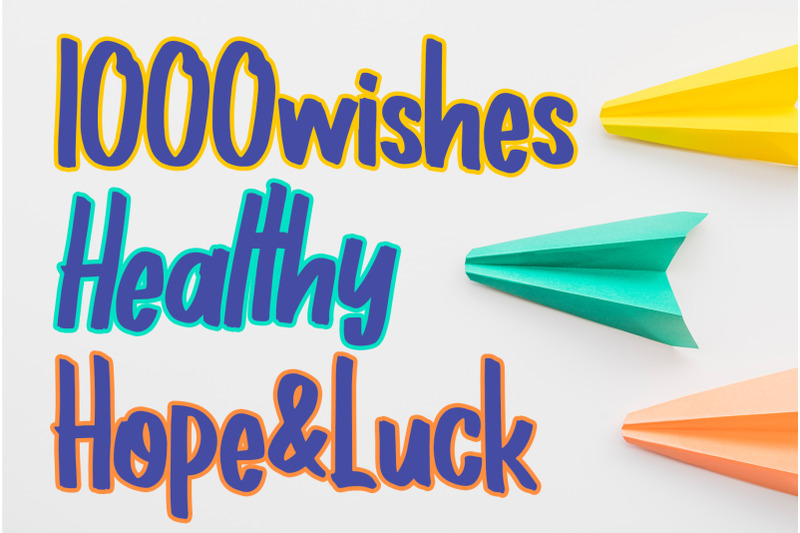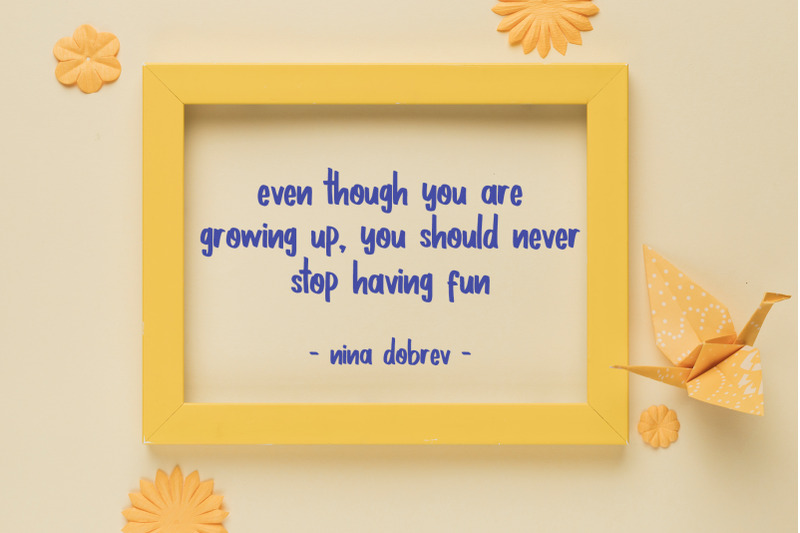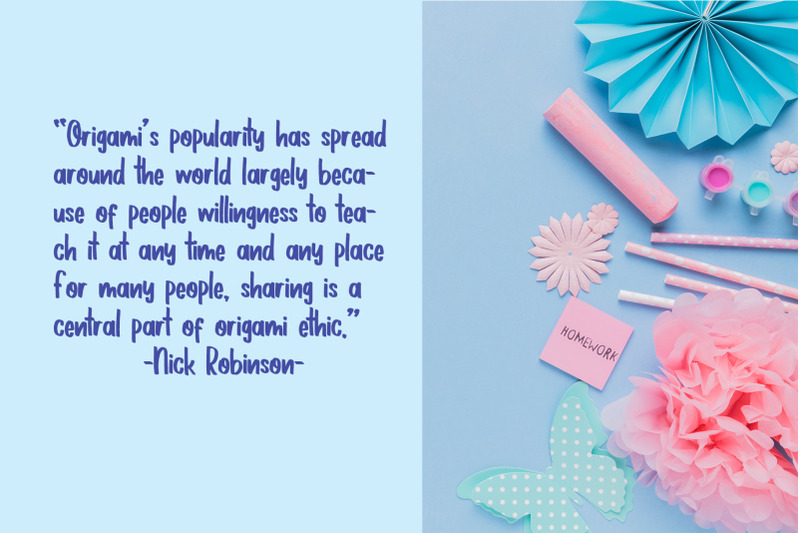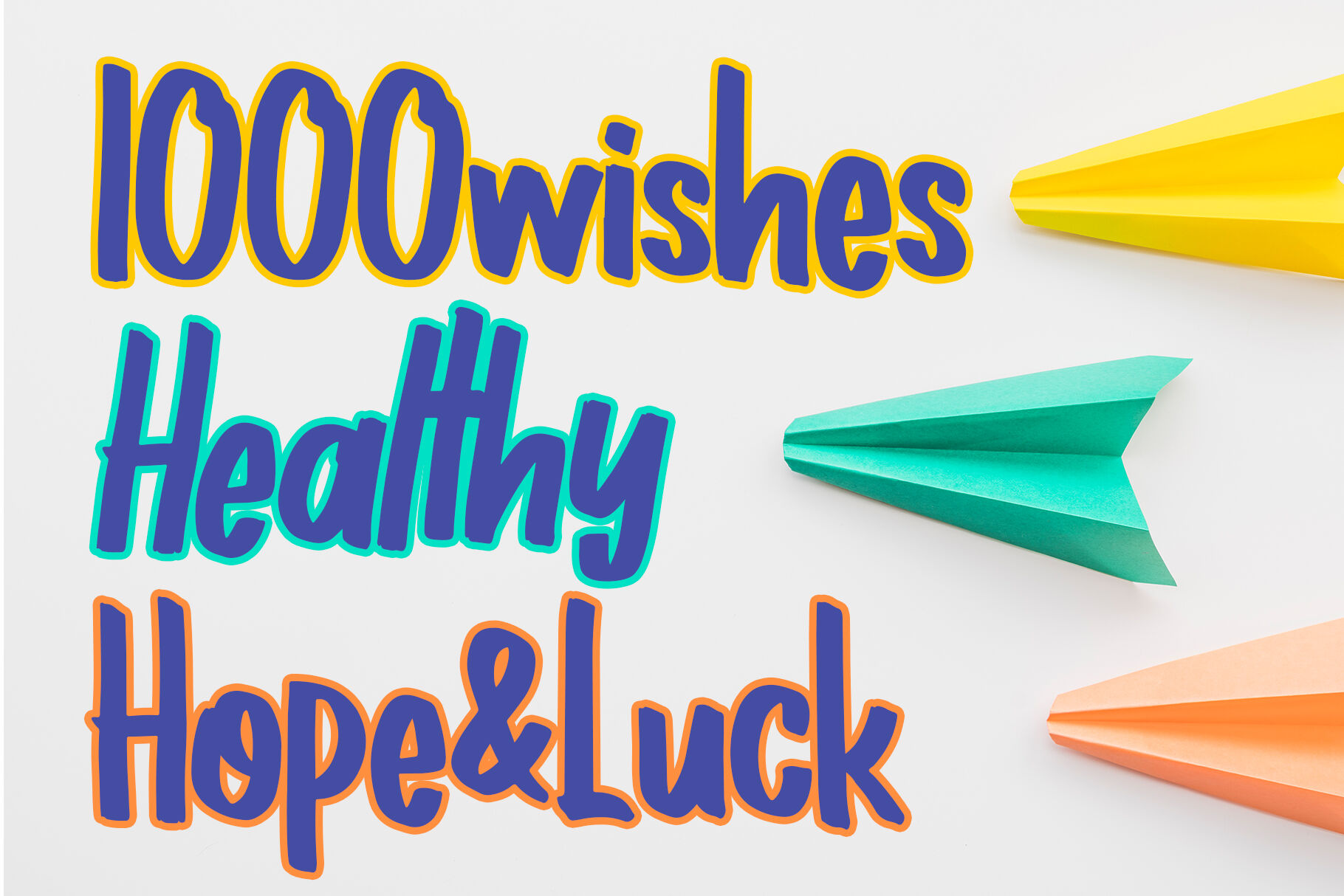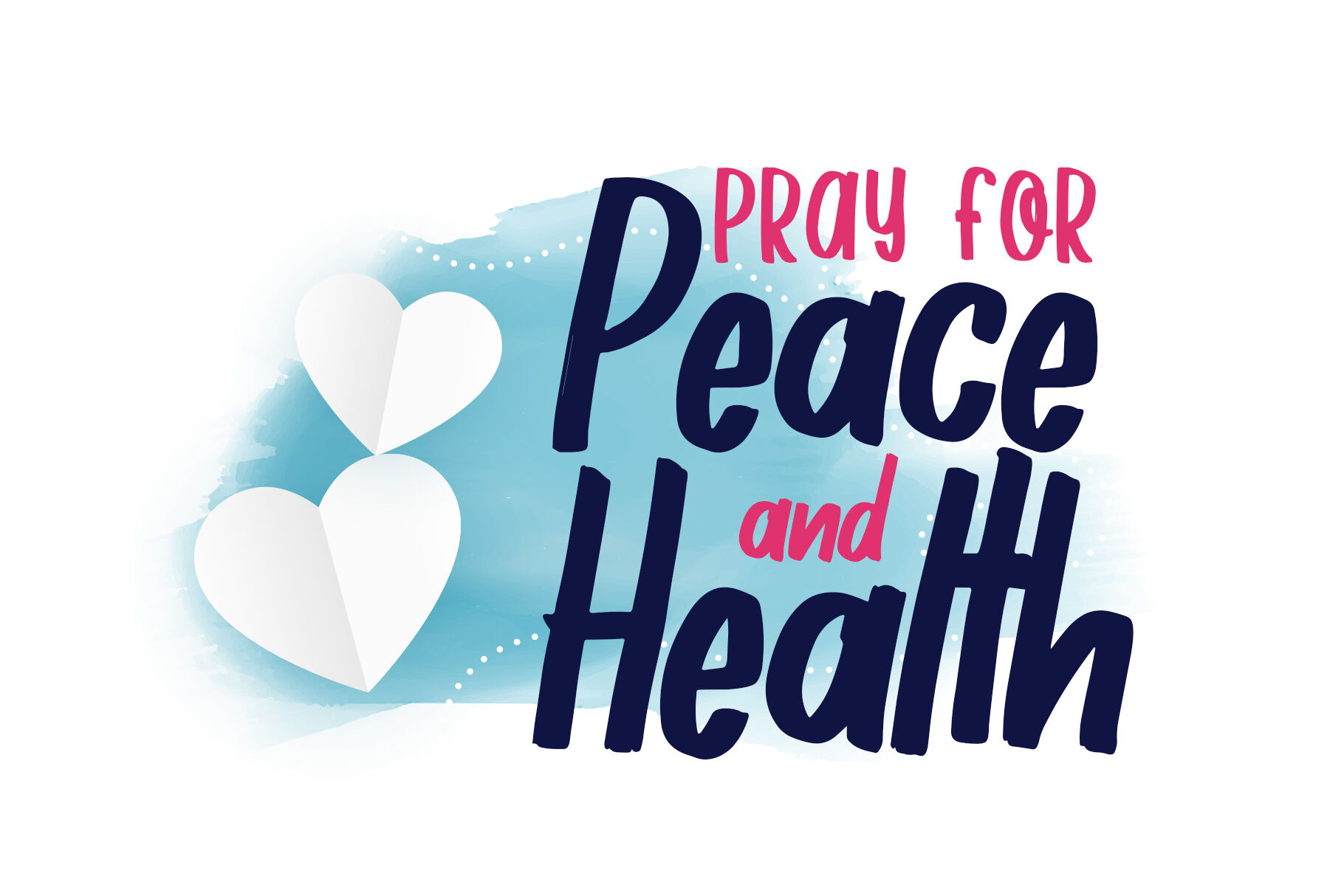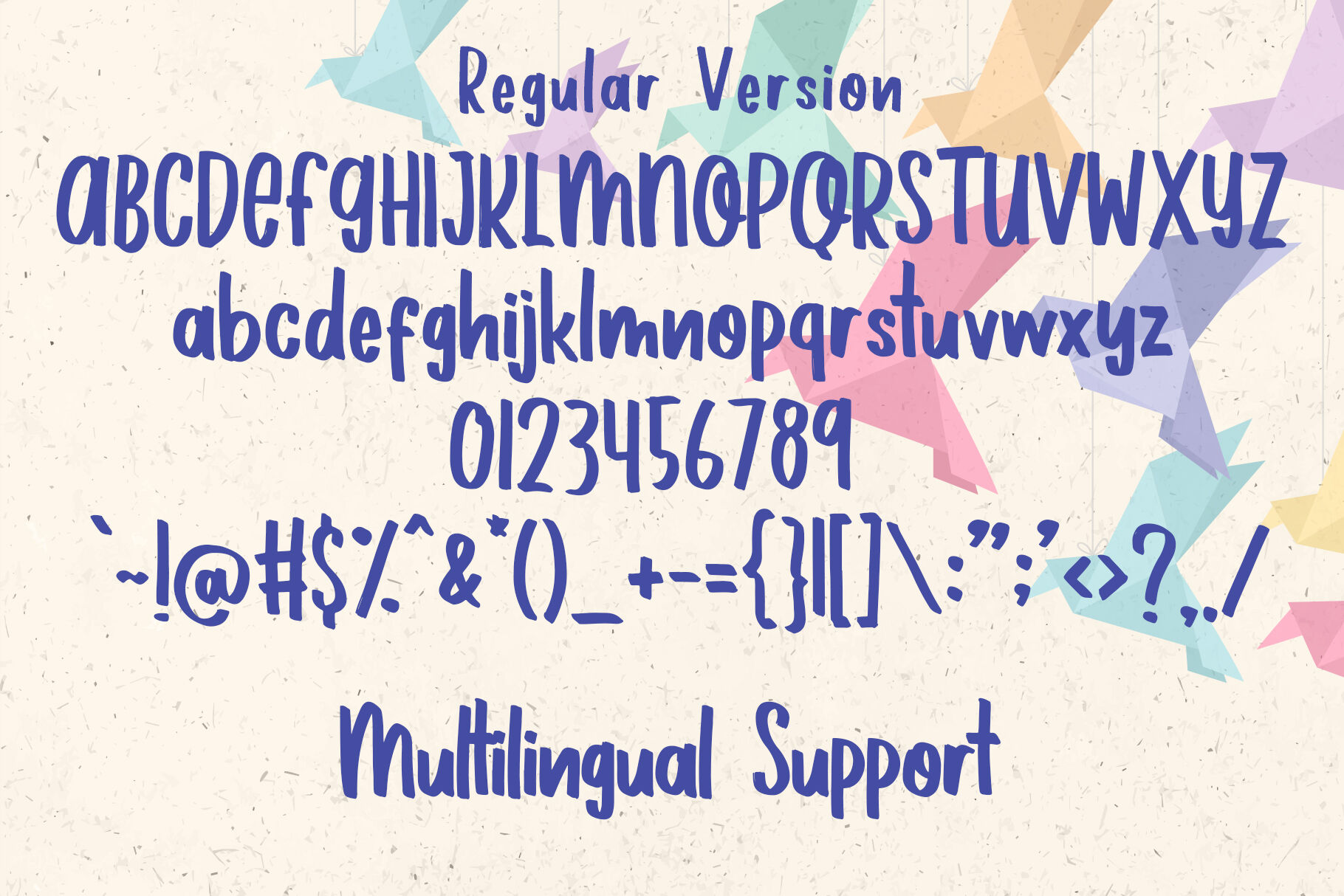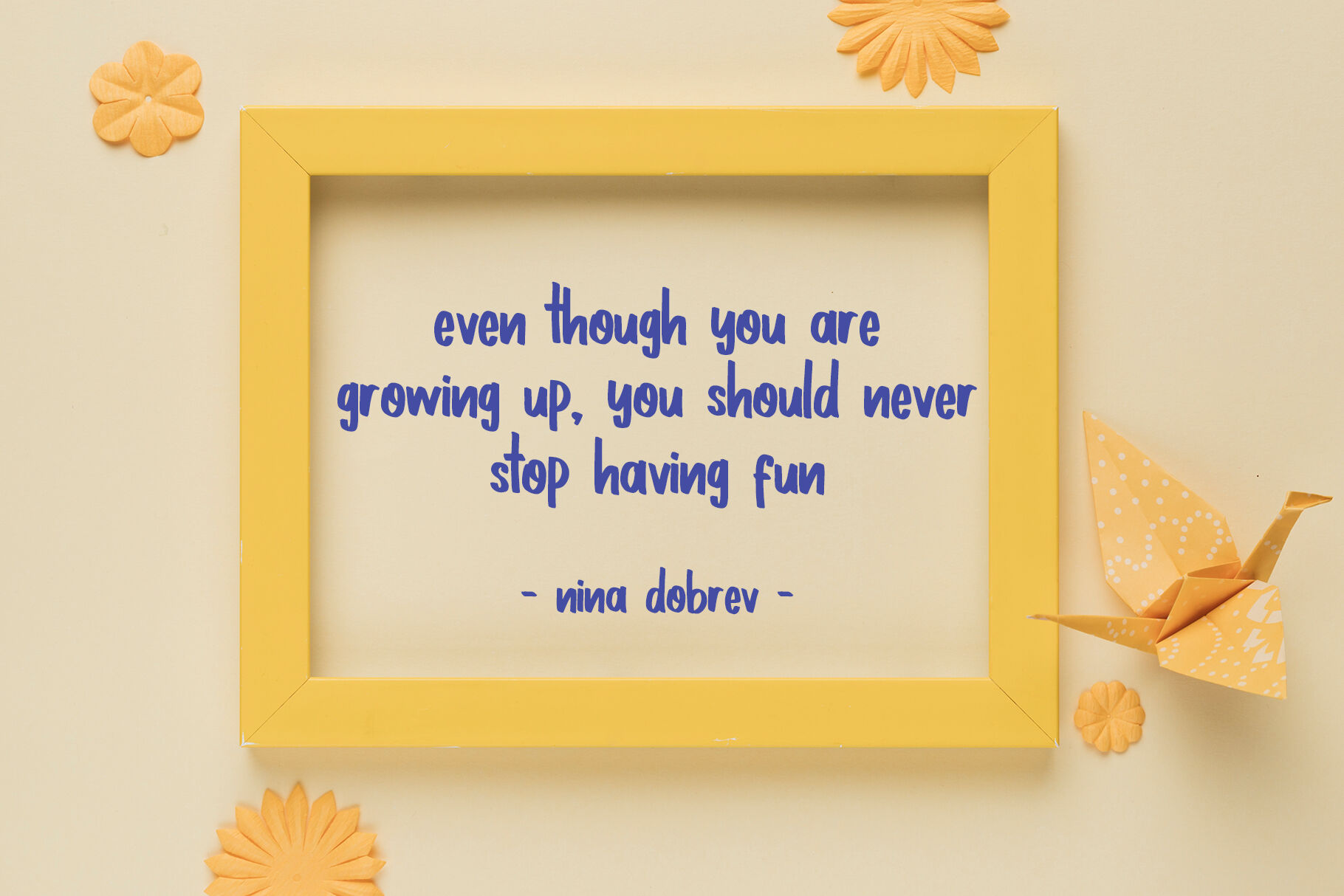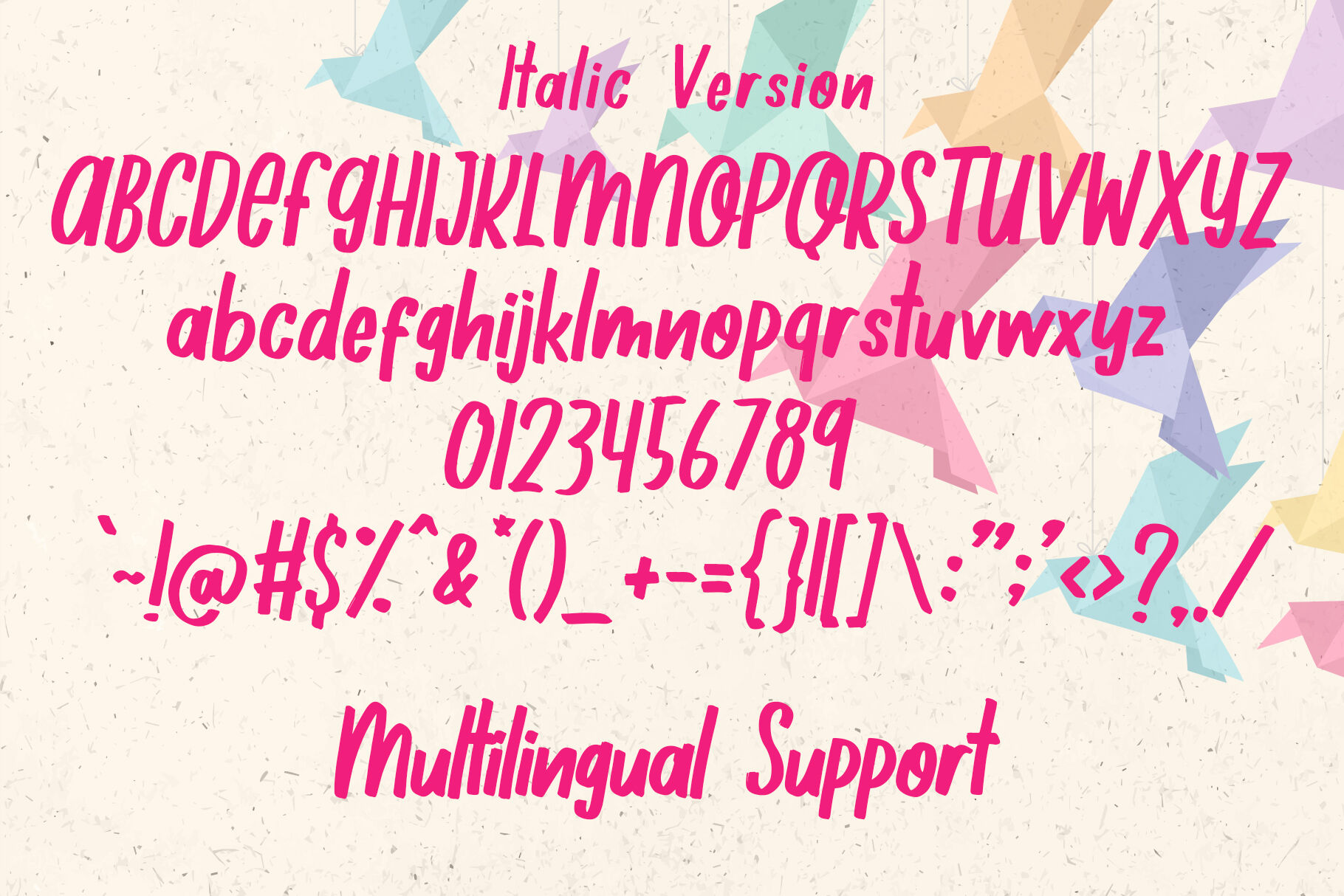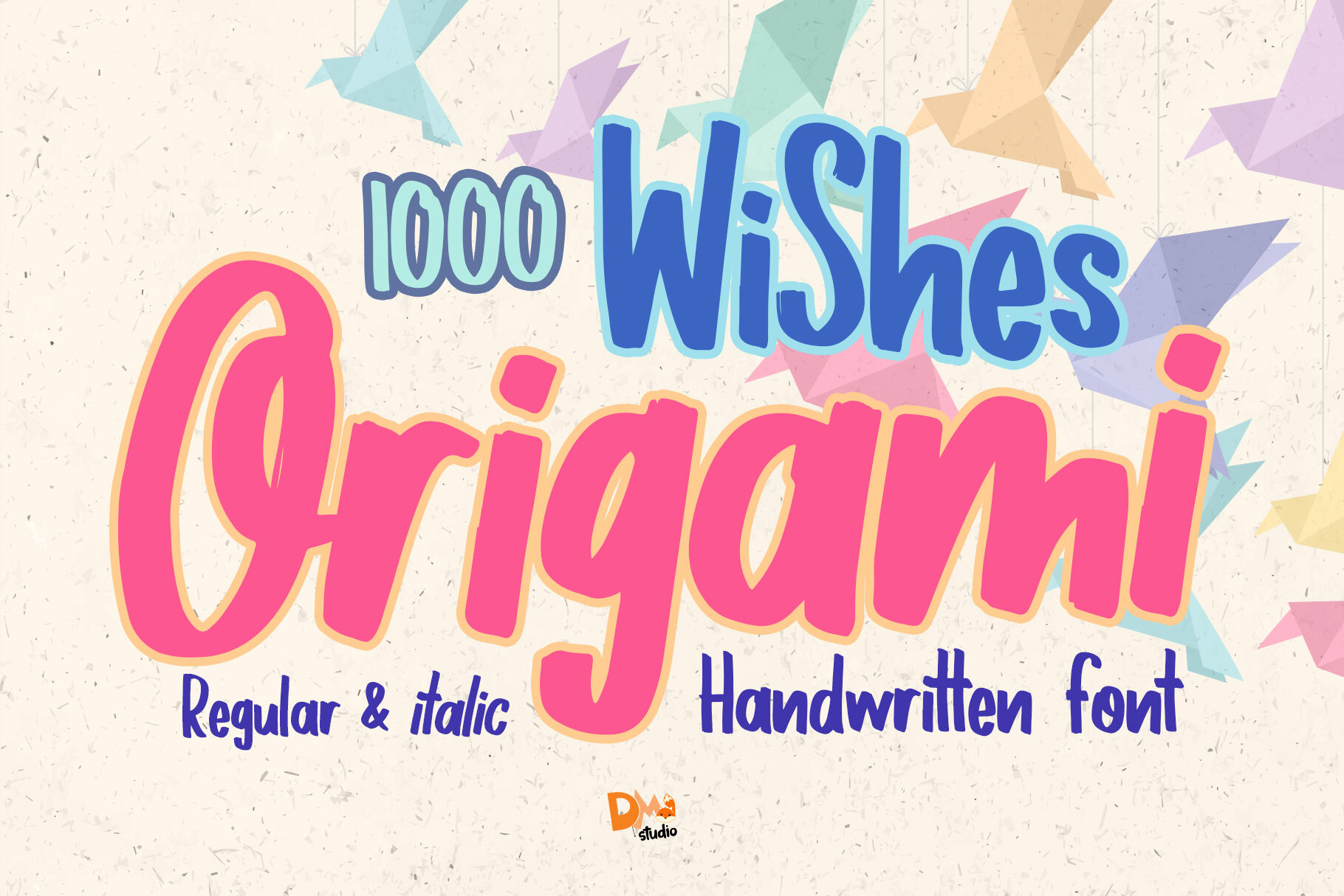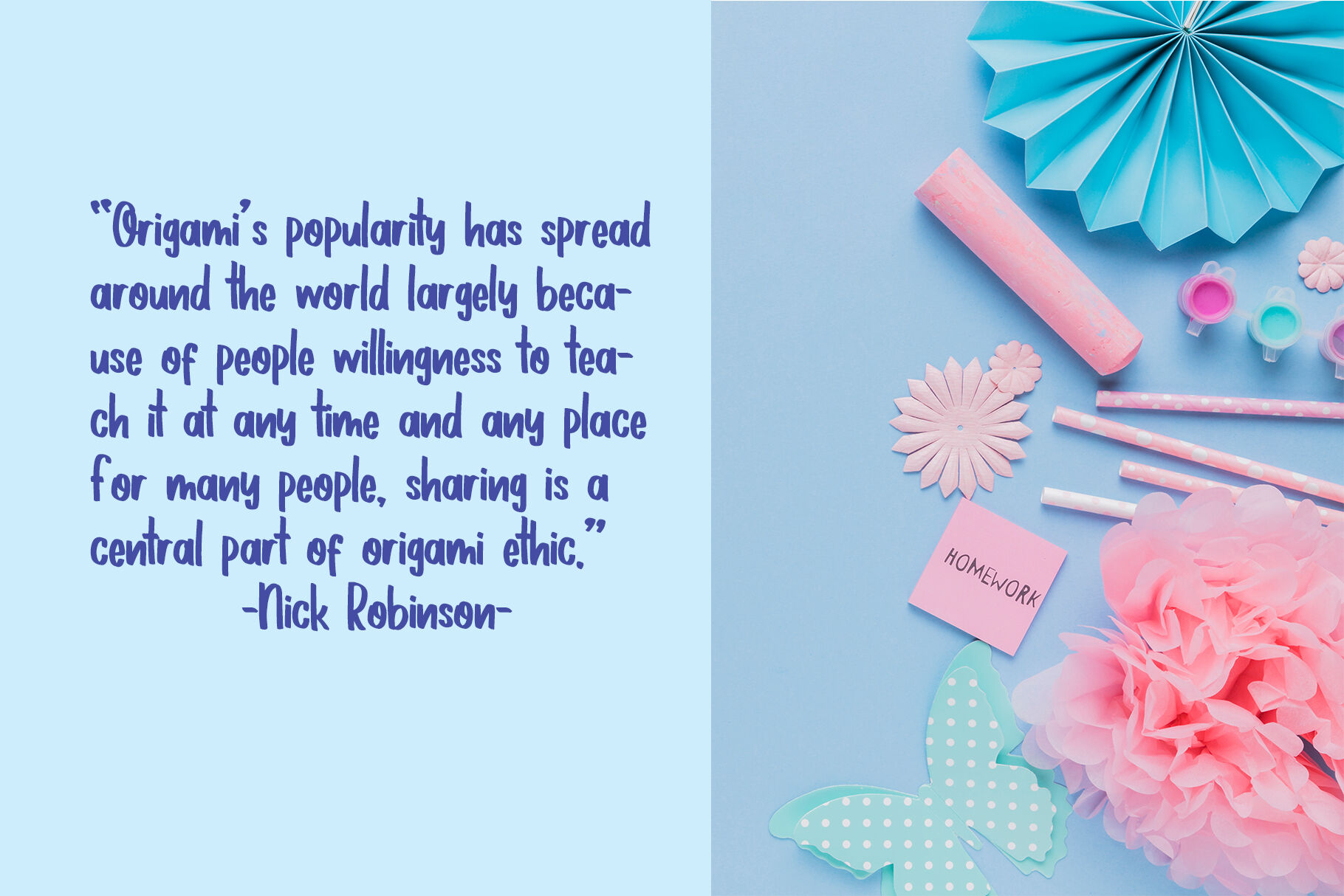
1000 Wishes Origami – Handwriting Font
1000 Wishes Origami is a charming handwritten font inspired by the delicate artistry of folded paper wishes and heartfelt notes. With gentle curves and a personal touch, this font brings warmth and sincerity to every design. Ideal for journaling, greeting cards, craft projects, and branding that craves a human connection, it evokes the quiet beauty of handwritten wishes shared with love.
Features:
Handwritten Origami-Inspired Style: Soft, flowing lines mimic the organic feel of pen on paper and the elegance of origami forms.
Perfect for Sentimental Projects: Great for personal stationery, heartfelt messages, scrapbooks, and handmade creations.
Warm & Whimsical Aesthetic: A cozy font that balances legibility with artistic flair.
Full Character Set: Includes uppercase, lowercase, numbers, punctuation, and multilingual support.